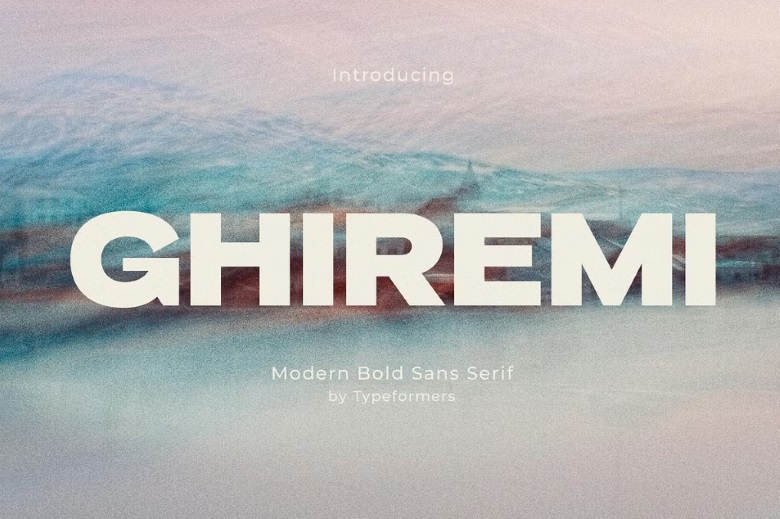
Ghiremi Font
Let me present you Ghiremi: A Modern Bold Sans Serif. The font Ghiremi is plain, new and suitable mostly for large sized text spotting, logos, branding, magazines, packing and invitations.
Ghiremi Sans Serif Font